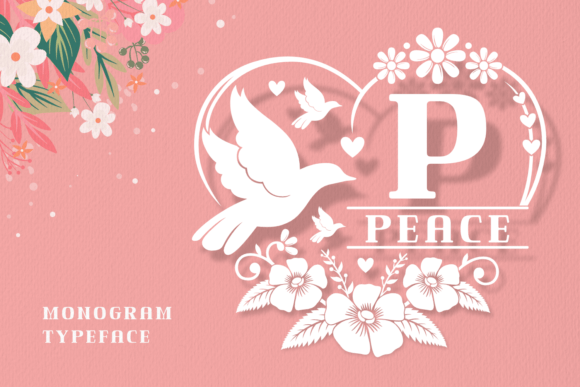
Introducing Peace Monogram Font - the perfect font for all your Santa letters and beyond! With its delicate and stylish design, Peace Monogram is the best decorative font to add a touch of elegance and personality to any creation.
Created by Situjuh, this font family is a true work of art. Peace Monogram is not only visually stunning but also incredibly versatile. It's perfect for crafting a unique message and elevating your design to the next level.
What sets Peace Monogram apart from other decorative fonts is its PUA encoding. This means you can easily access all of the glyphs and swashes, allowing you to customize your design with ease.
With Peace Monogram, the possibilities are endless. Whether you're designing a Santa letter, a holiday card, or any other creative project, this font will add a touch of sophistication and charm.